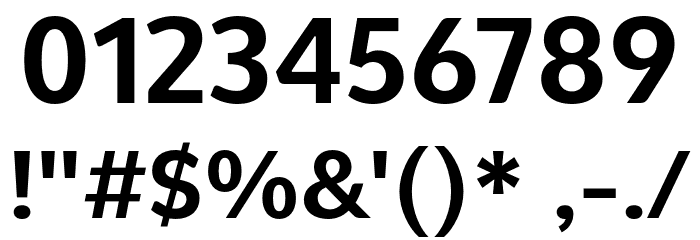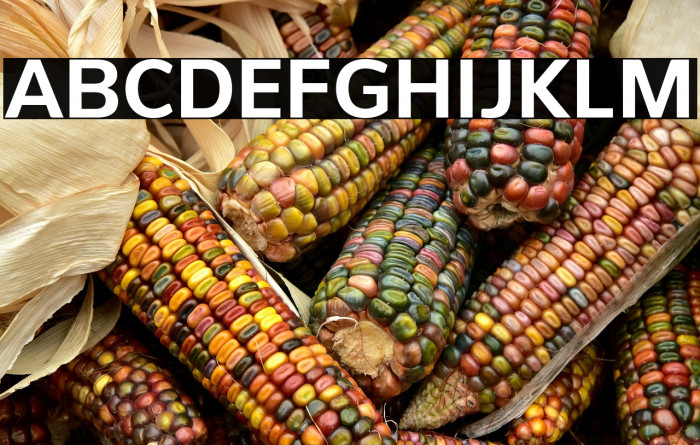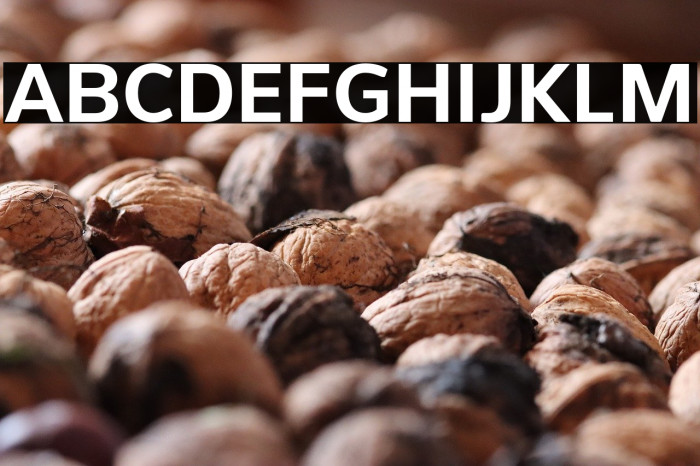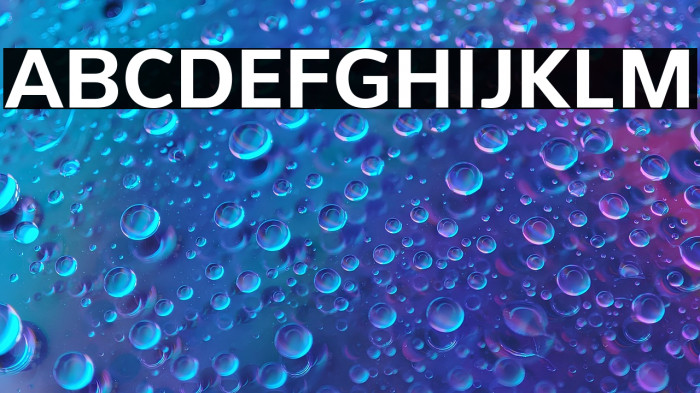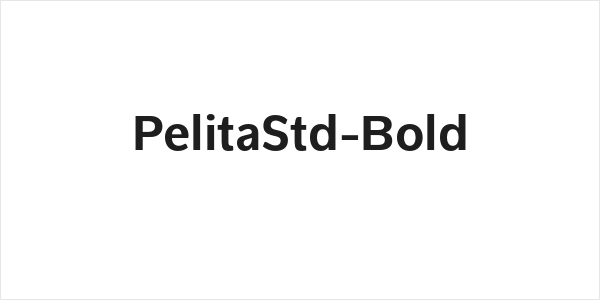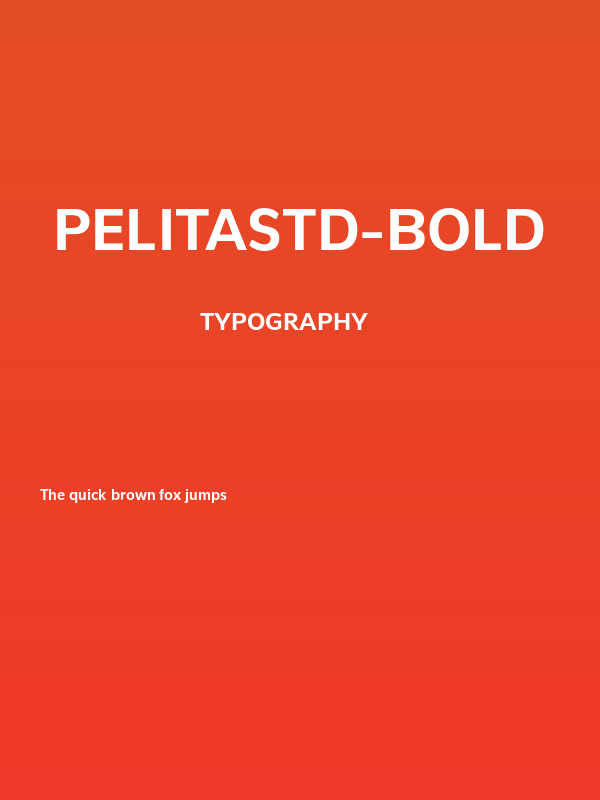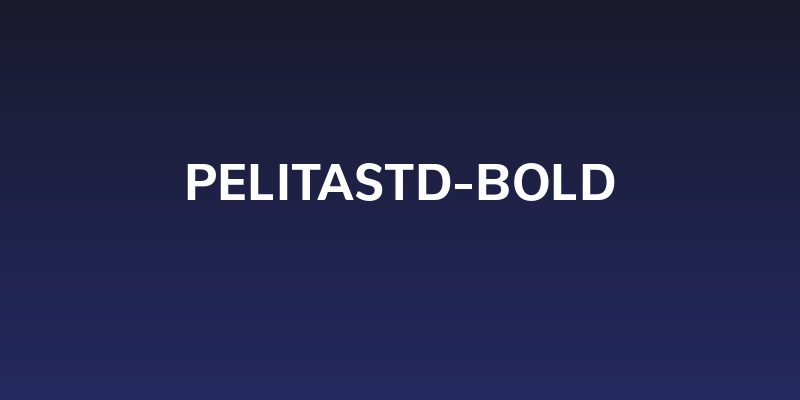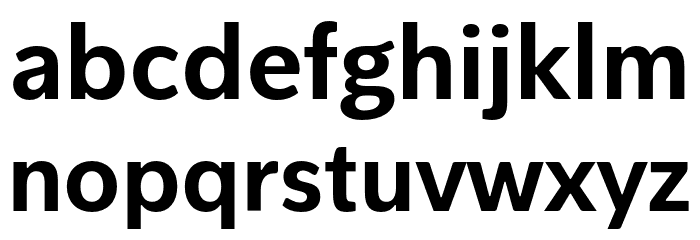
PelitaStd-Bold Font
PelitaStd-Bold Description
This font features a bold and modern sans-serif design, characterized by clean lines and a strong presence. The uppercase and lowercase letters are well-proportioned, offering a harmonious balance that enhances readability. The numerals are clear and distinct, making them suitable for both display and text purposes. Special characters are included, maintaining the font's cohesive style. Its bold weight and normal width make it versatile for various design applications, from digital to print media.